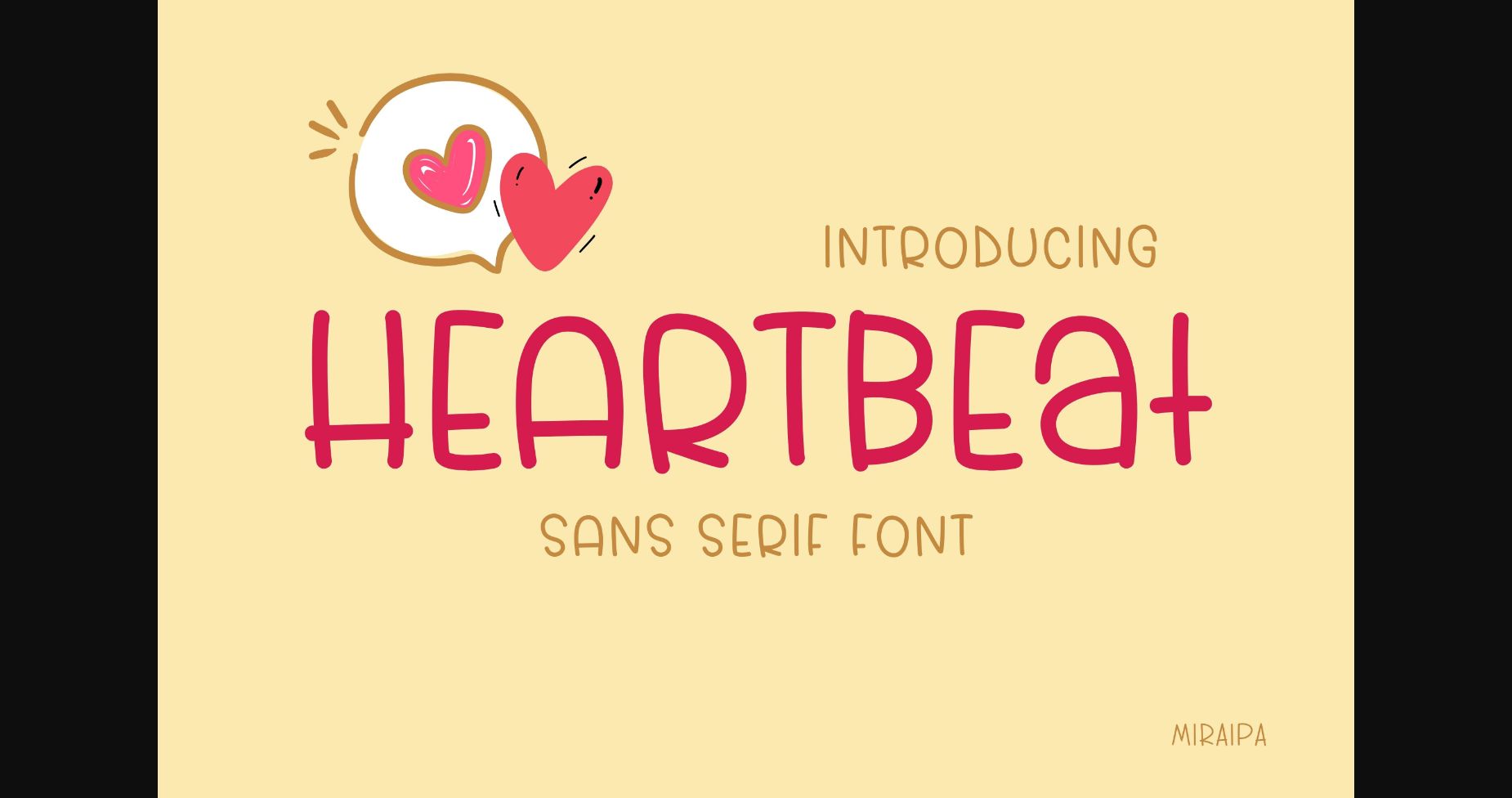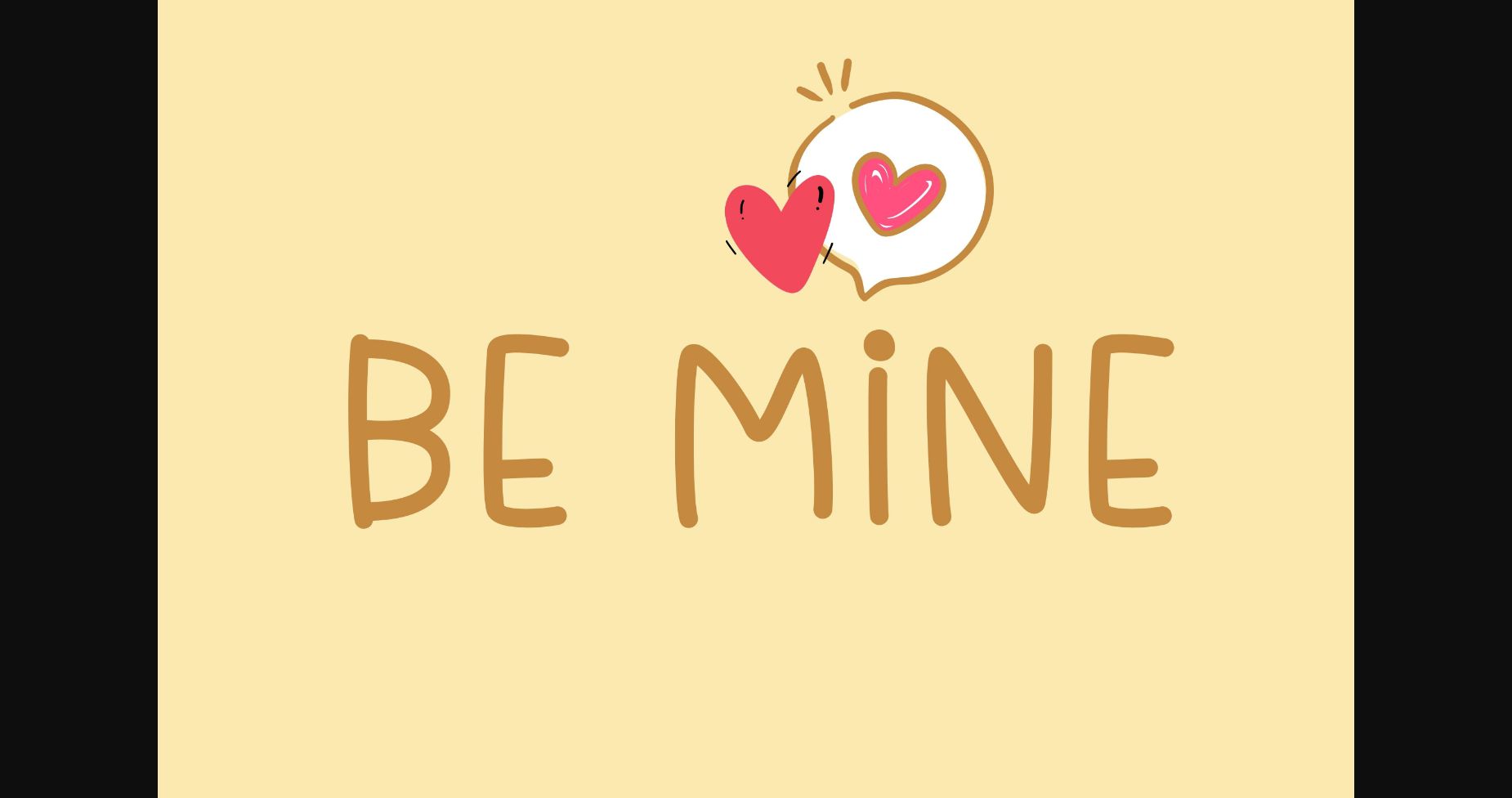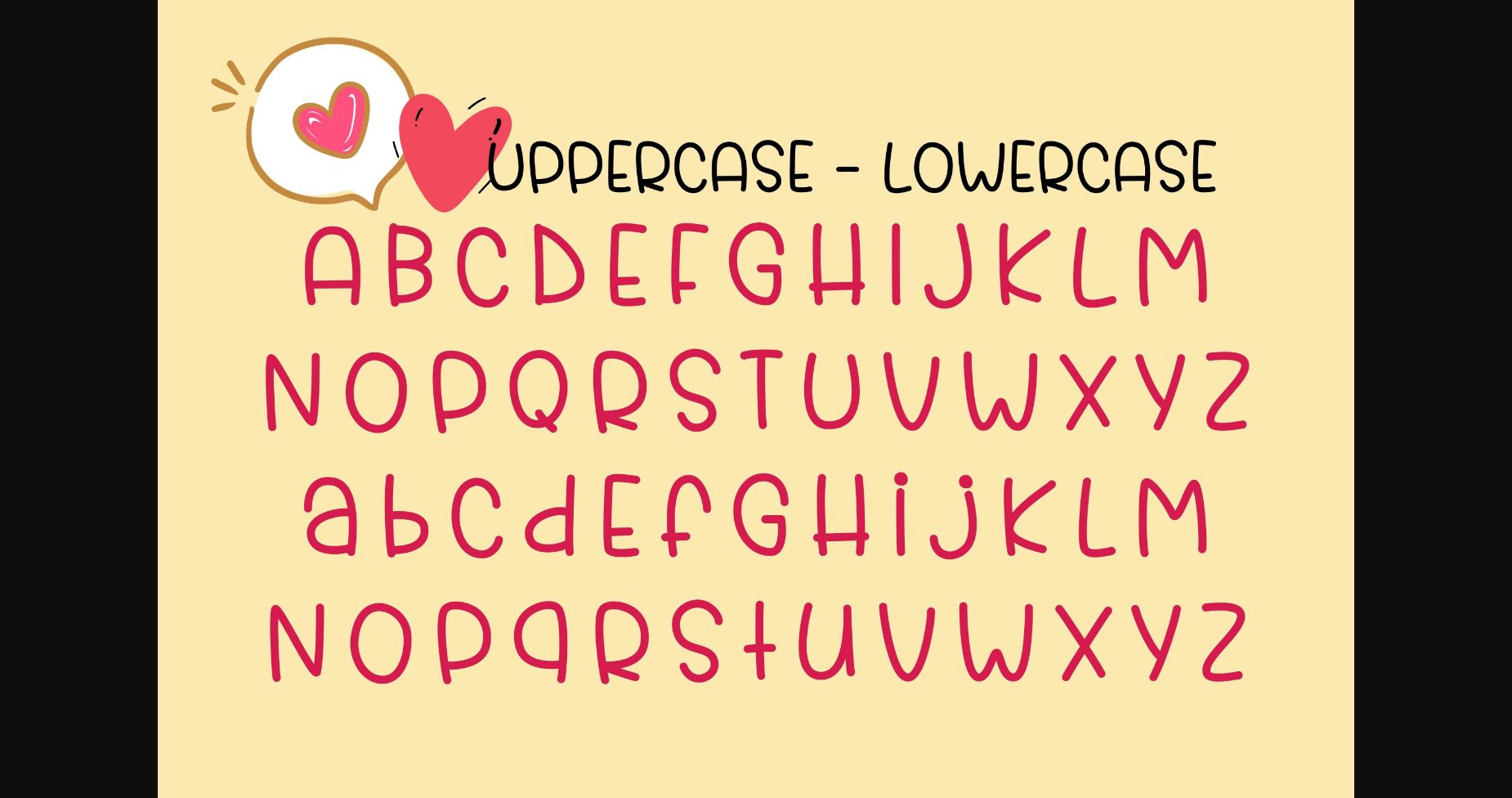
About Heartbeat Font
Heartbeat is designed in a cute and friendly handwritten sans serif font style. It would be perfect for your diary, planner, back-to-school projects, weddings, party decorations, invitations, Fall, Halloween, Christmas, posters, blogs, clothing, child-related designs, greeting cards, social media posts, or anything that needs a friendly touch. Add it now to your fonts library, and it will bring any of your DIY projects to life!